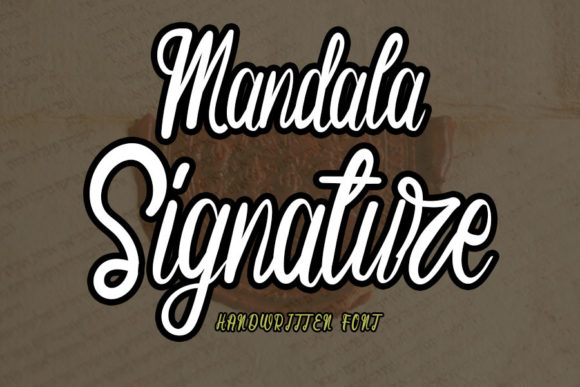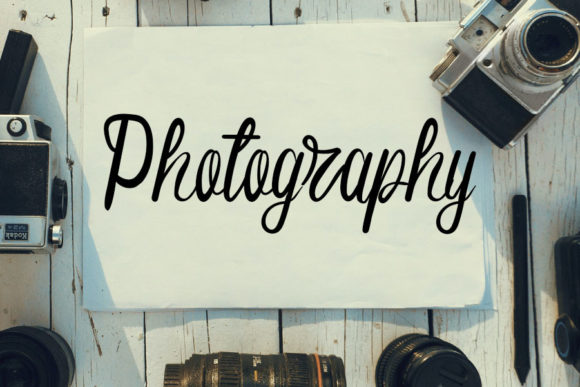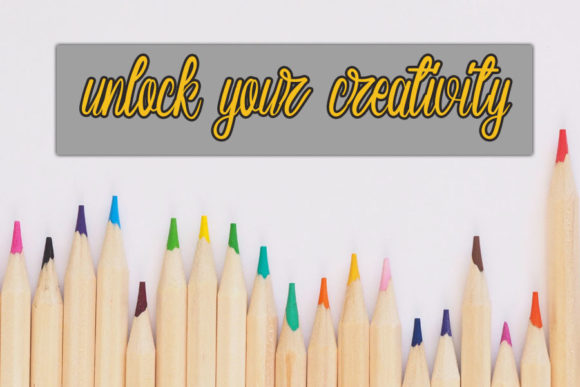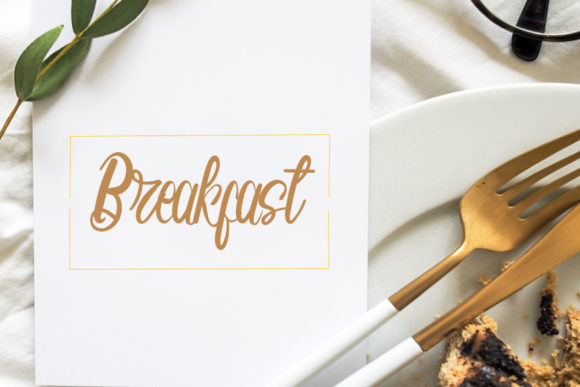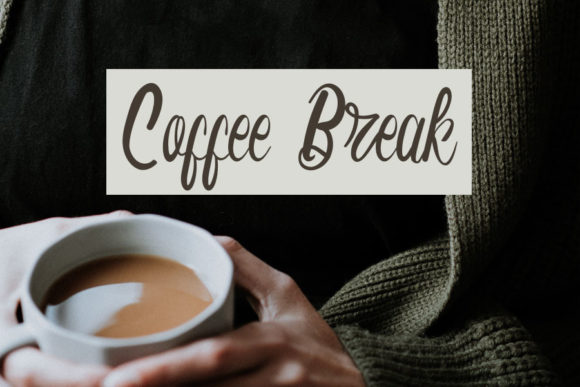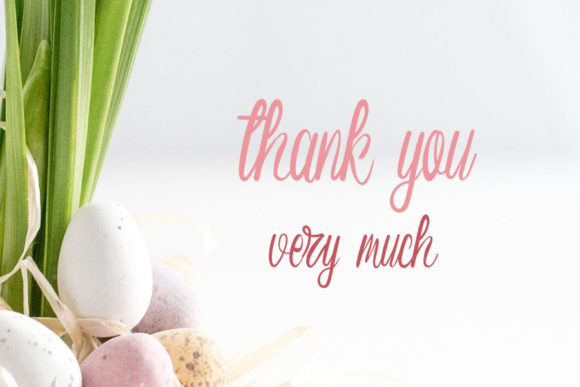
Mandala Signature Font
About Mandala Signature Font
Mandala Signature is a simple and flowing handwritten font. Whether you’re looking for fonts for Instagram or calligraphy scripts for DIY projects, this font will turn any creative idea into a true piece of art!